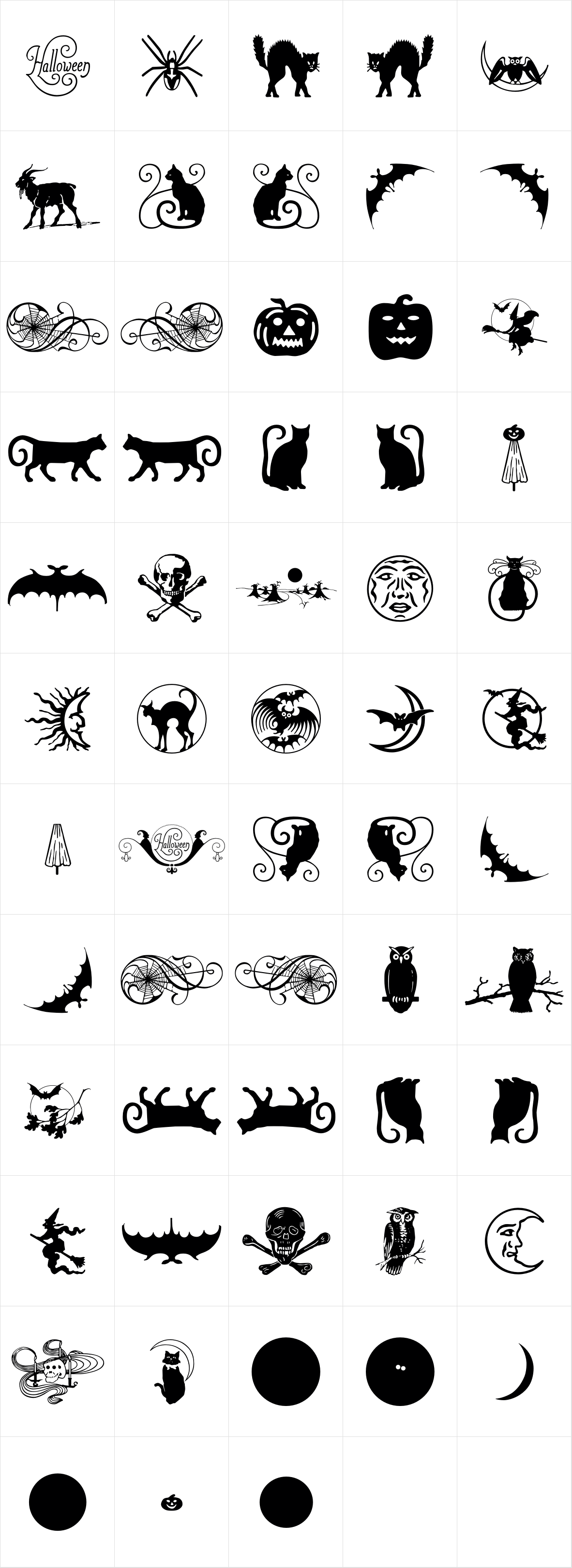
LTC Halloween Ornaments Font
- Halloween is a time when perfectly reasonable people choose to reenact some lost pagan rituals. No one seems to know why exactly, but Halloween has been celebrated in its present form for a little over one hundred years. This new set of ornaments dates back to the early 20th century and depicts a "classic" Halloween collection of black cats, pumpkins, witches and other indispensable Halloween ornaments. For character key map, please see the enclosed key chart. BLANK SPACES Most of the characters are based on a 1000M unit square in increments of 250 M. In this font, the space bar is 1000 M Hyphen is 500 M Underscore is 250 M Two Part Guide: To make use of the two part/two color ornaments (U, V, W, X, Y & Z), the font must be used in a program that allows for layers OR kerning. Kerning: This is the simplest way to have perfect alignment of the two part ornaments. For such decorative treatments, large sizes (over 72 pt.) show best results. 1) Simply type the lower case character, then a space, then the same character in upper case (the constructed letter) just like this: u U v V w W x X y Y z Z 2) Highlight the first character and choose a second color (Orange is always a good classic Halloween color to go with black) 3) Remove the space between the two characters and kerning will merge the two letters into one two color character. Layering: The other way to do the same thing is to layer one text box over the other in a program such as Photoshop.